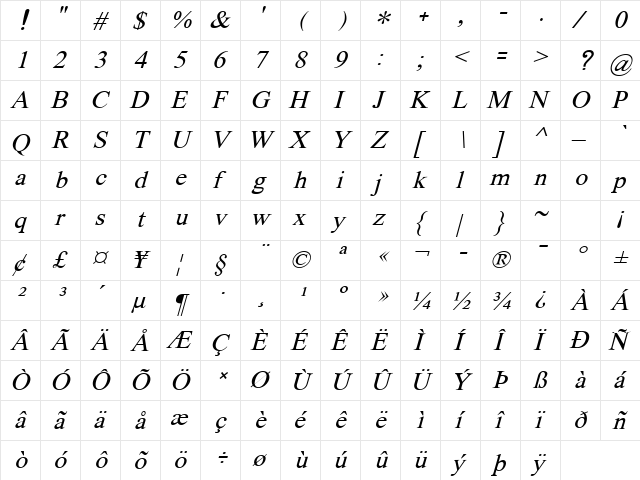
Khmer Mondulkiri Italic
| Designer | D. Kanjahn |
Design Context for Khmer Mondulkiri Typeface
Khmer Mondulkiri offers clean, dependable letterforms without strong stylistic allegiance, making it a practical choice for designers who need flexibility. Its italic angle brings a sense of urgency and motion to the letterforms.